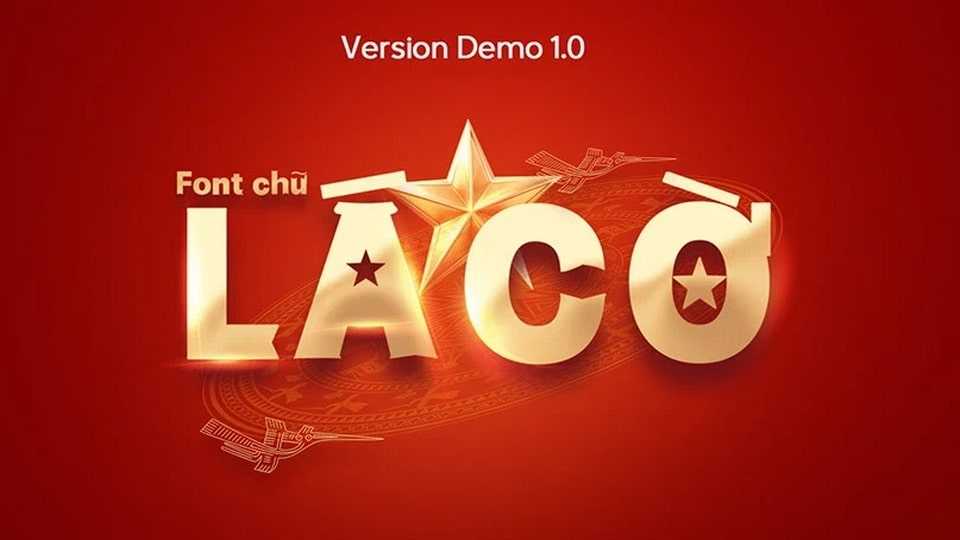
Download The Lá Cờ font, a typeface inspired by the image of Vietnam’s traditional swallowtail flag, with the golden star symbolizing the unity of the entire Vietnamese people in their devotion to the Fatherland.